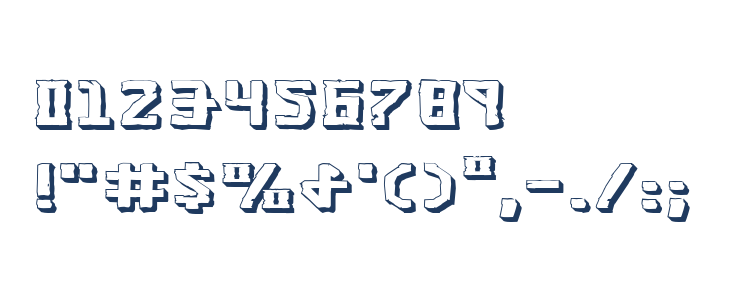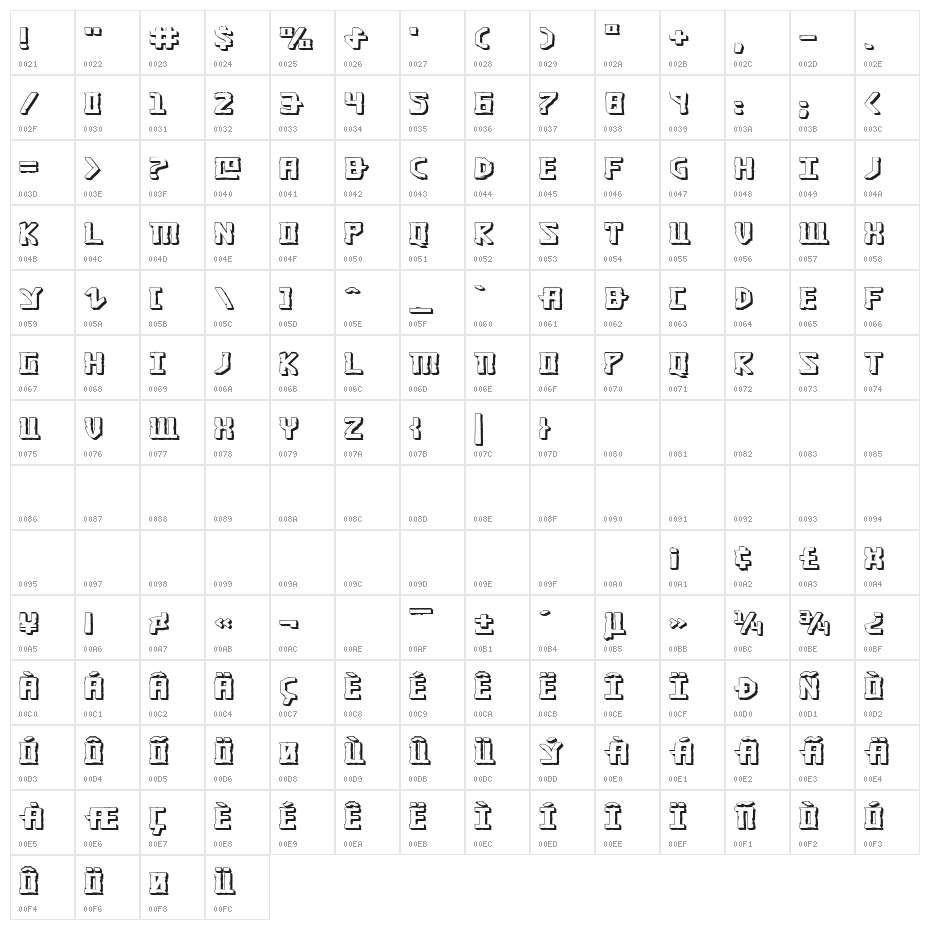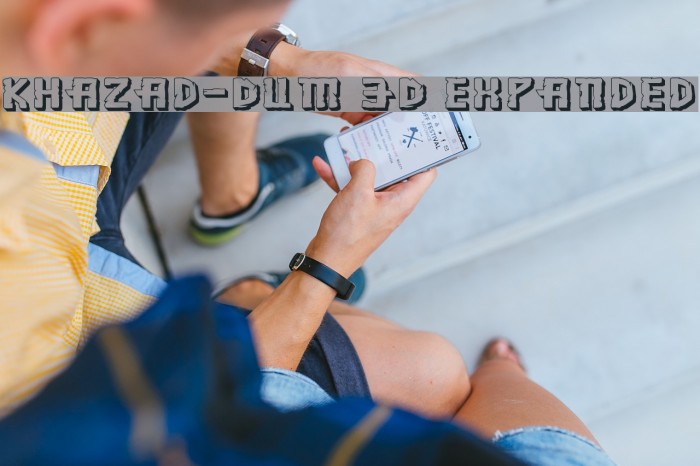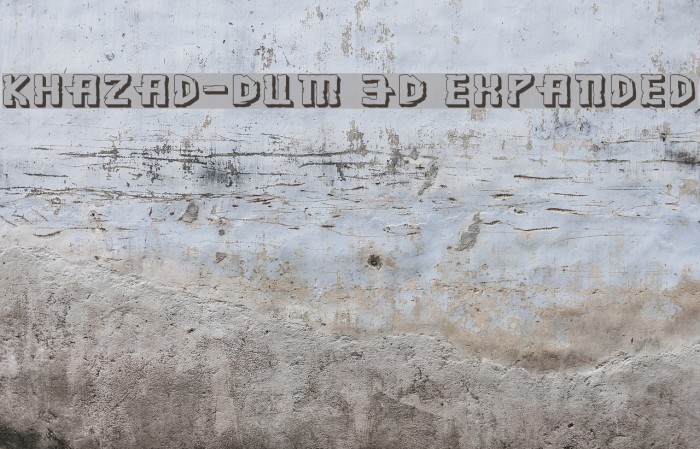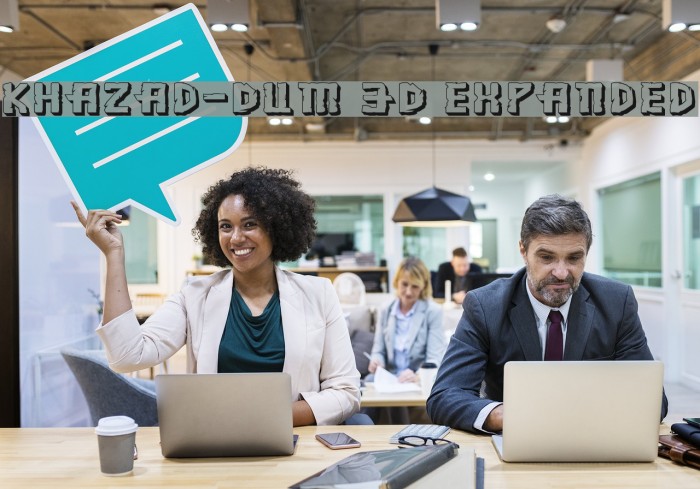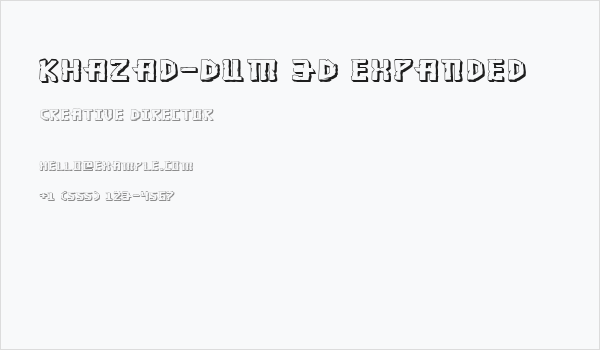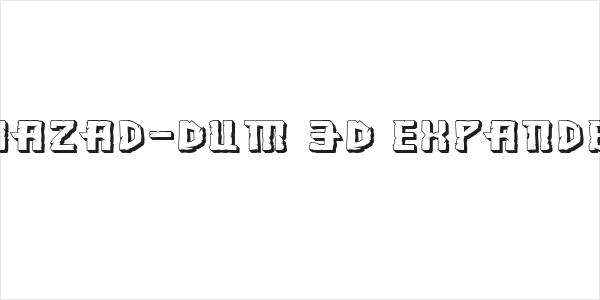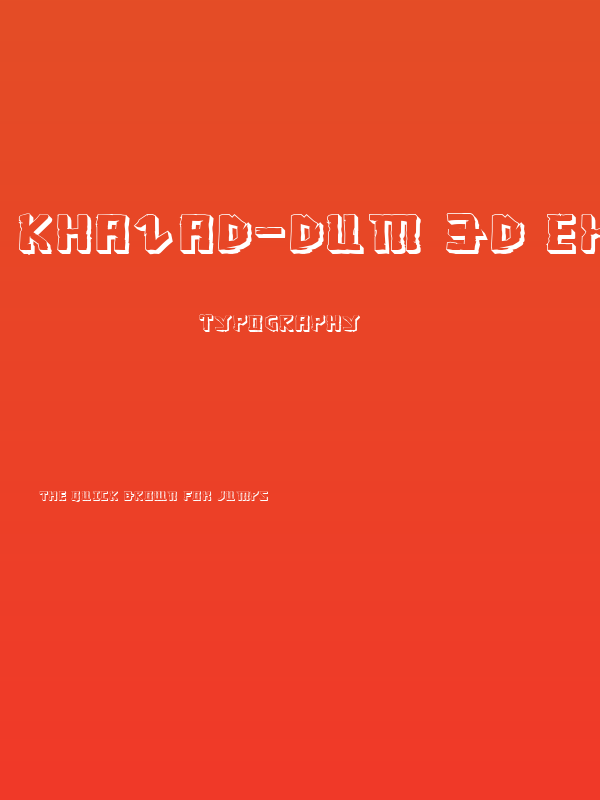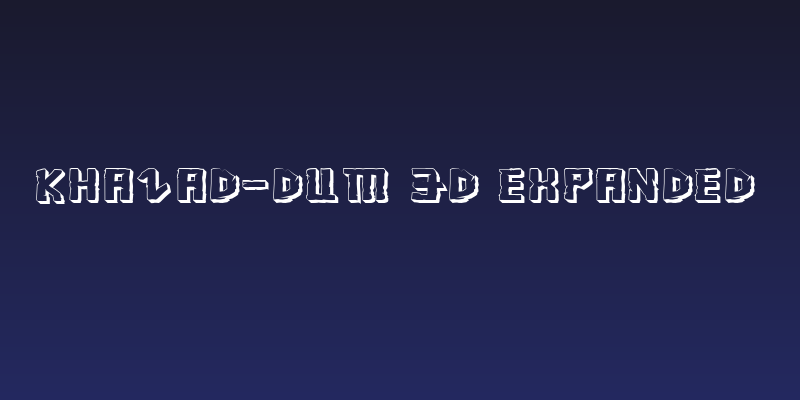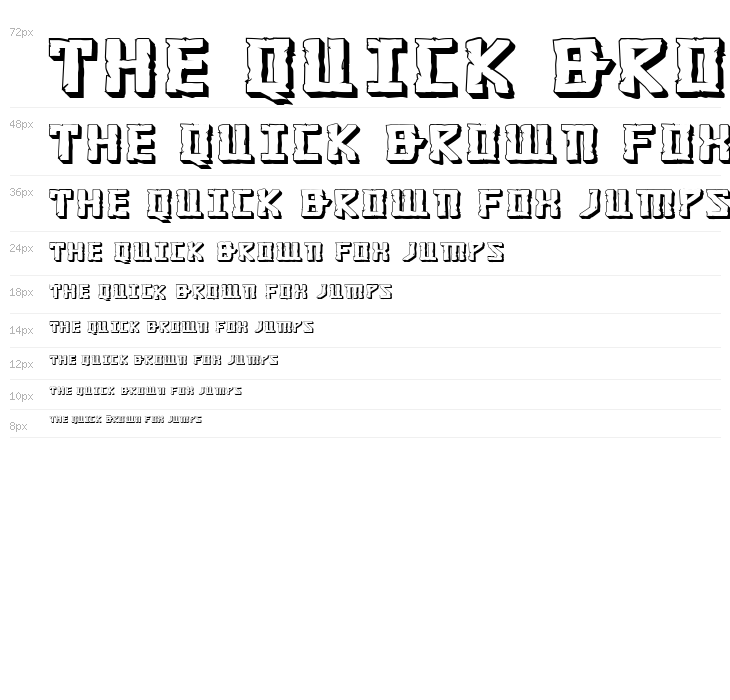
Khazad-Dum 3D Expanded Font
Khazad-Dum 3D Expanded Description
This font features a bold, three-dimensional design with a distinct shadow effect that gives it a chiseled, stone-like appearance. The characters are blocky and angular, with sharp edges and a rugged texture that suggests strength and durability. The uppercase letters are particularly striking, with a consistent width and height that creates a uniform look. The numbers and special characters maintain the same bold style, ensuring cohesion across all text elements. This font's unique 3D effect makes it stand out, adding depth and dimension to any design.
| Proposed Projects | Ideal for fantasy-themed projects, video game titles, movie posters, or any design requiring a strong, impactful typeface. |